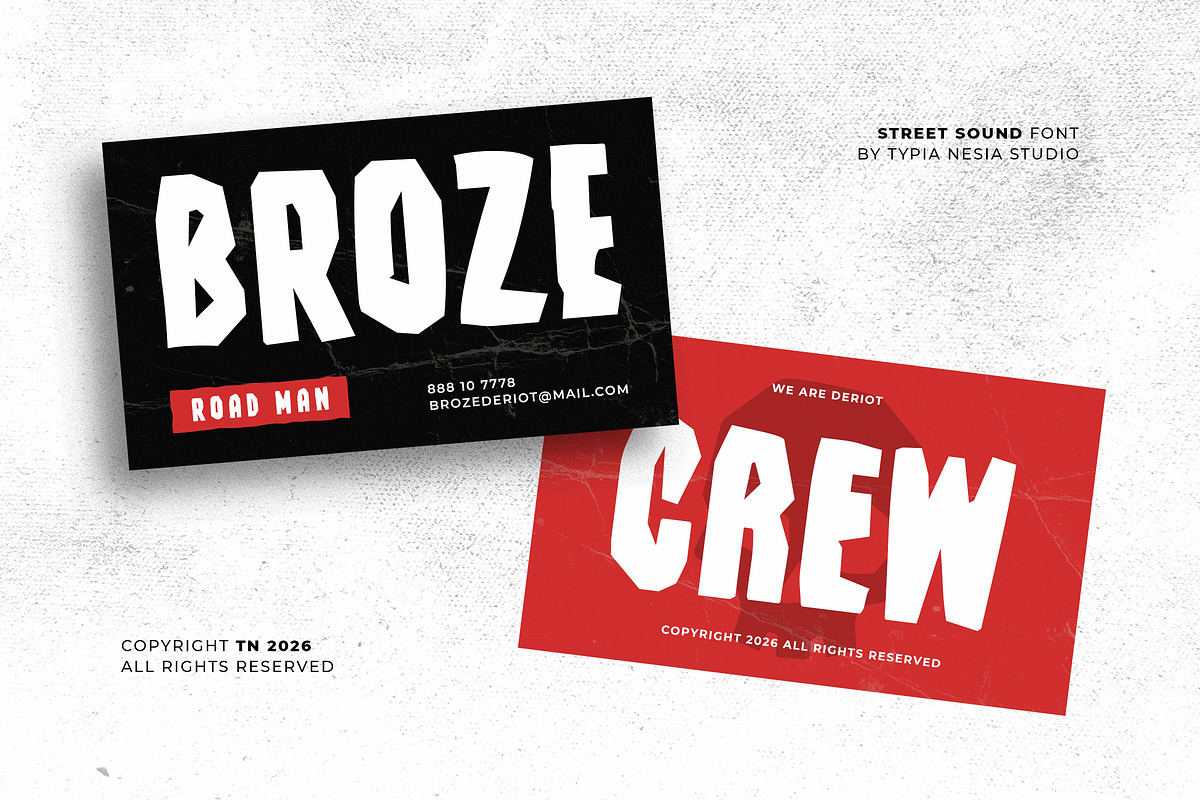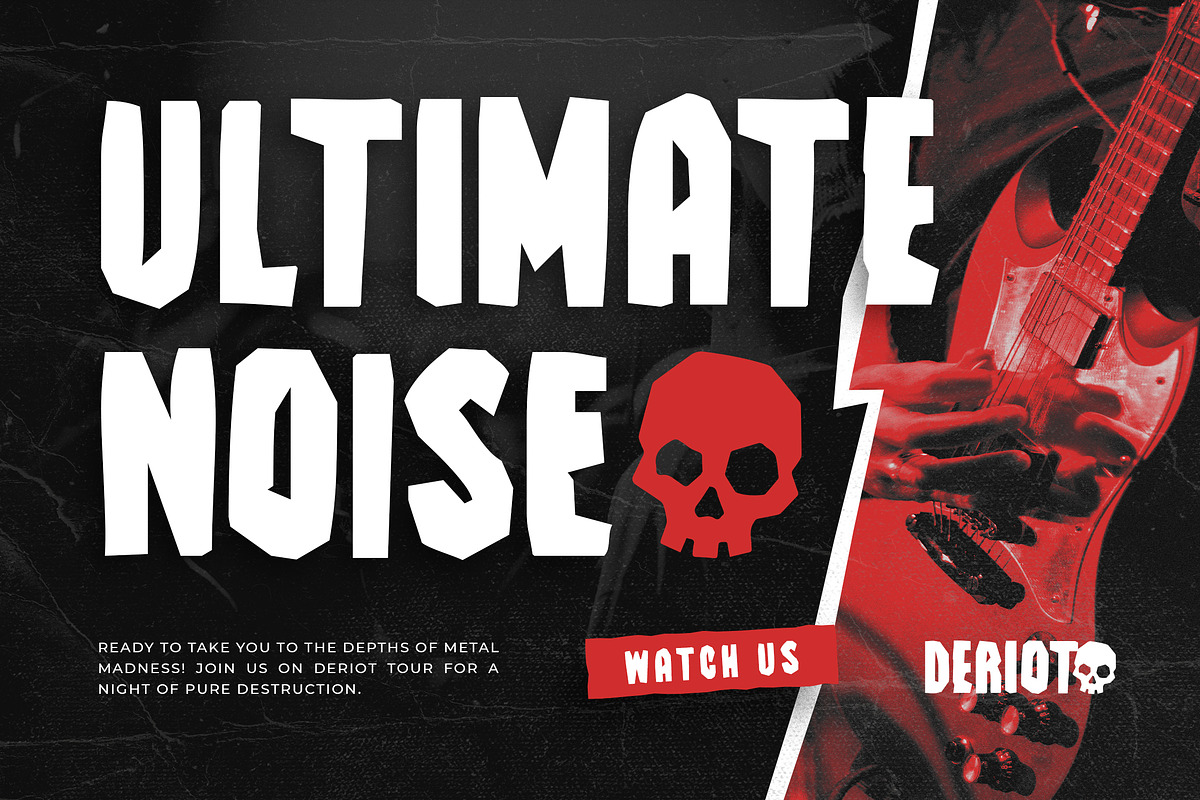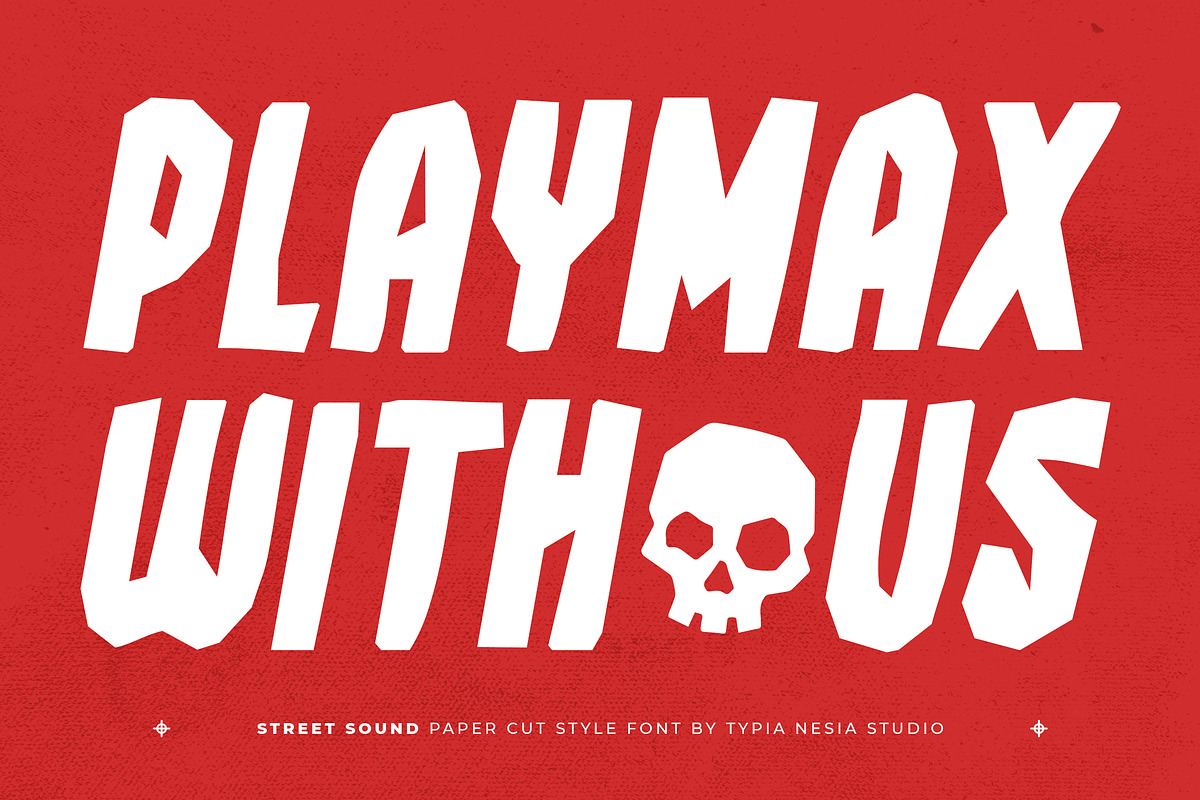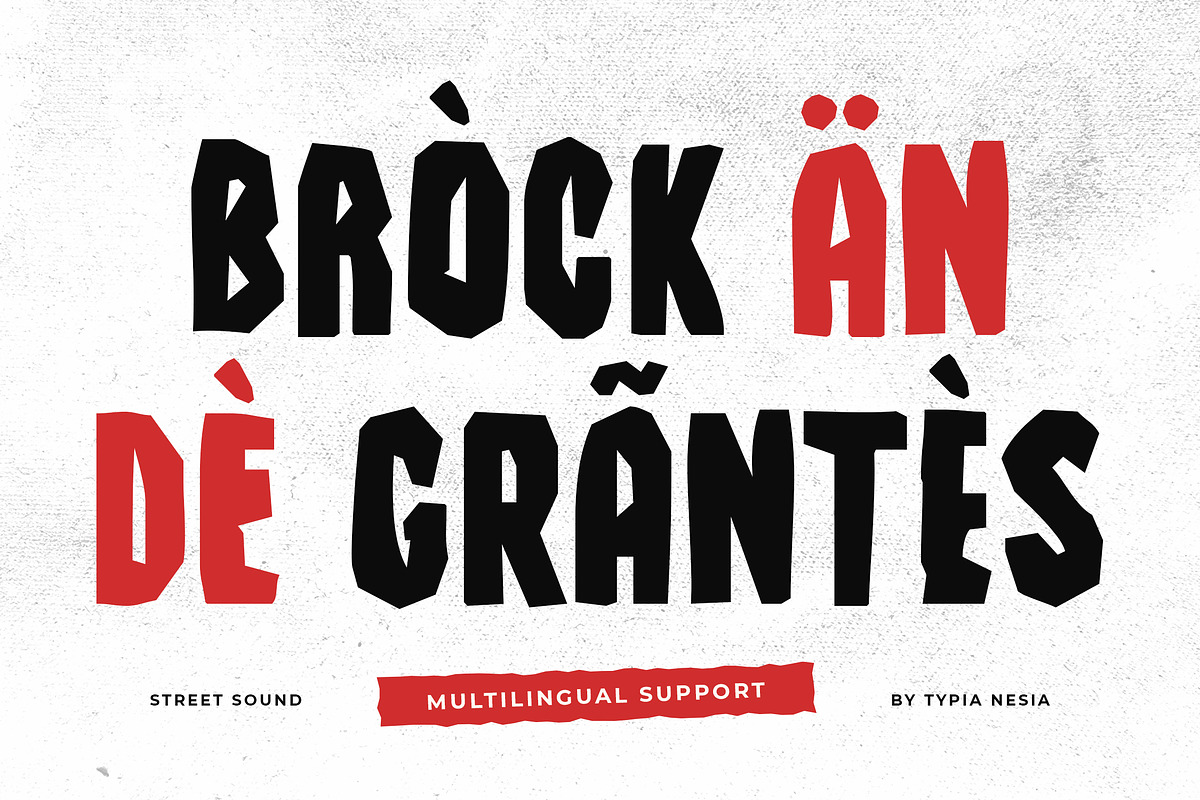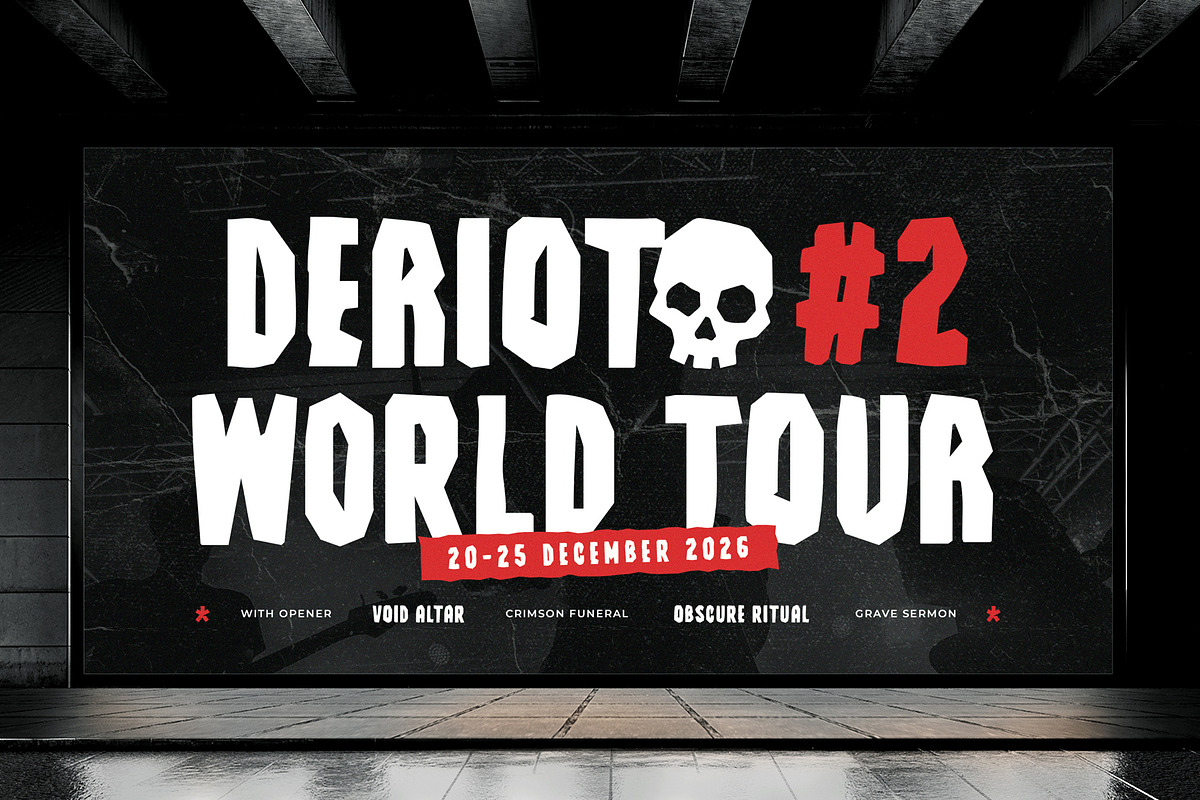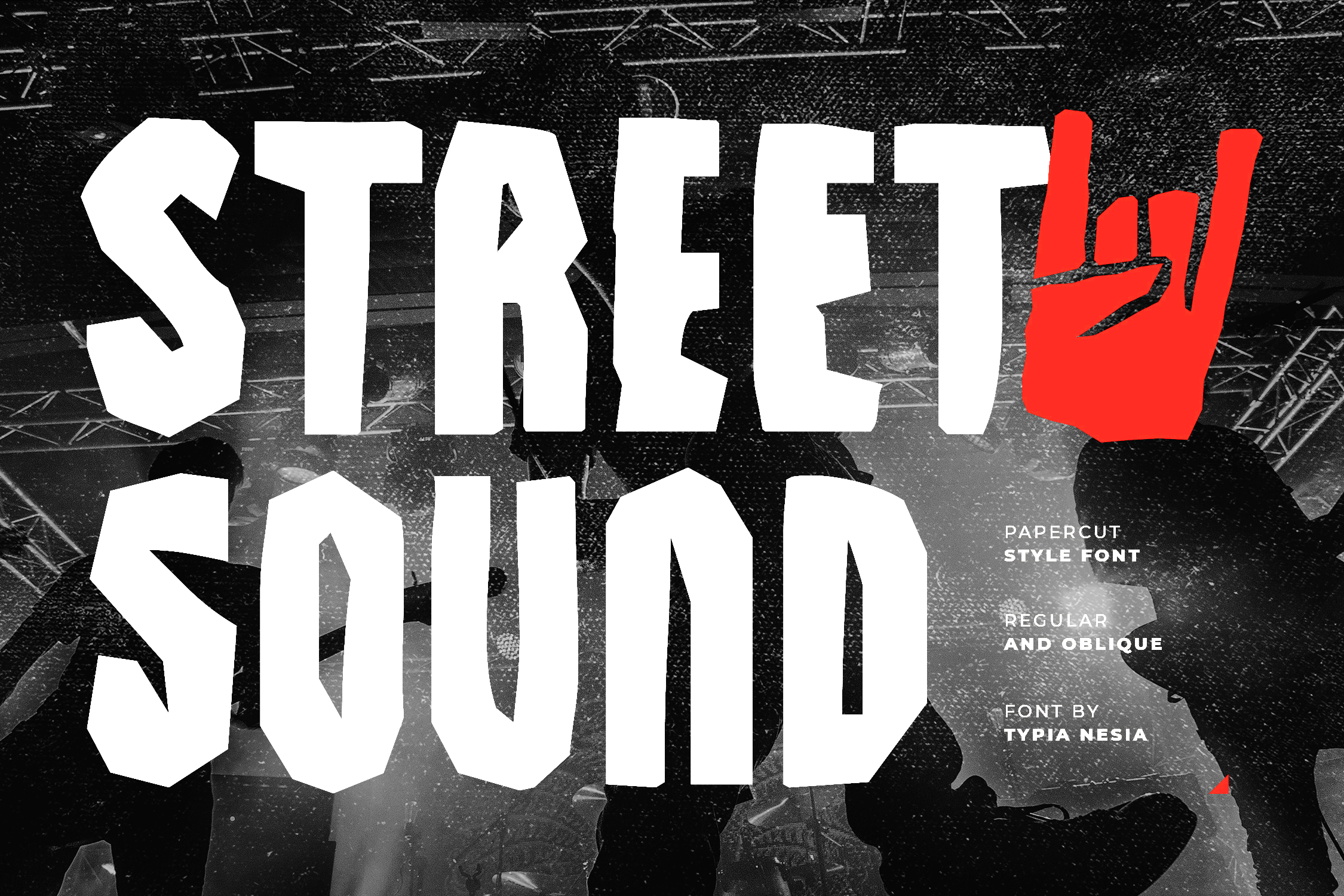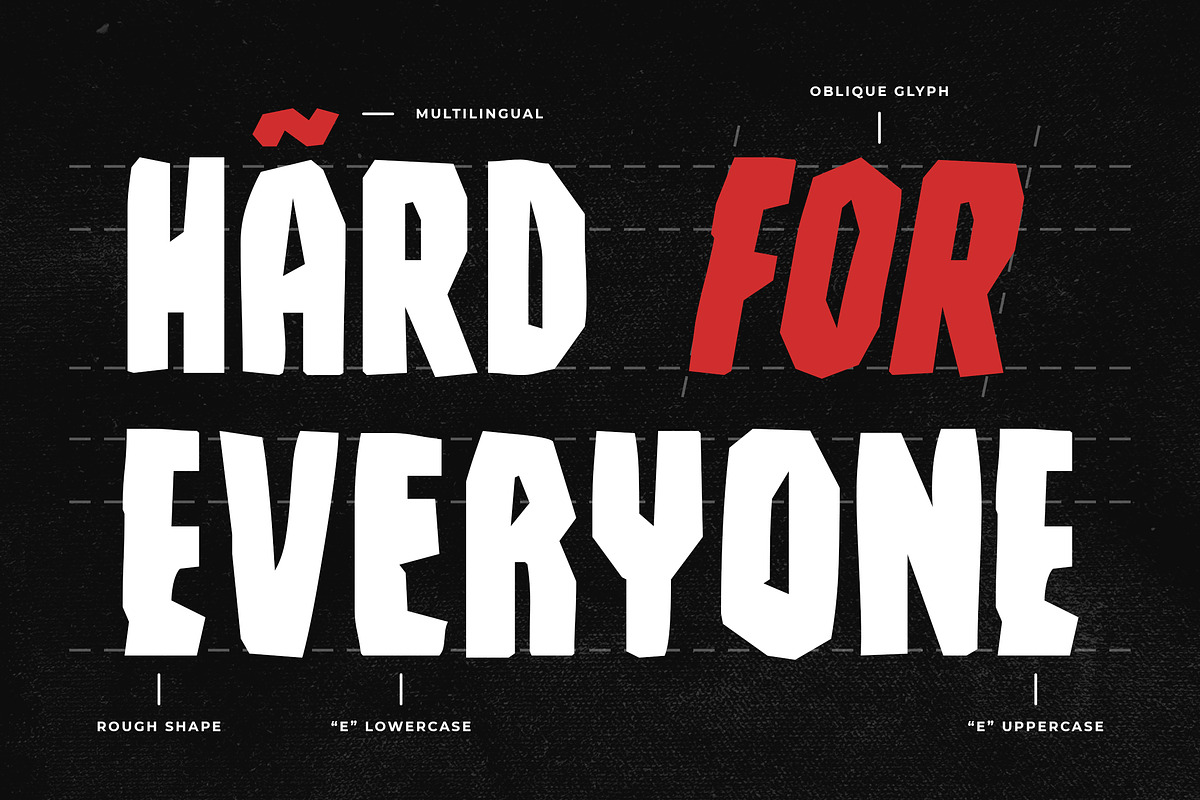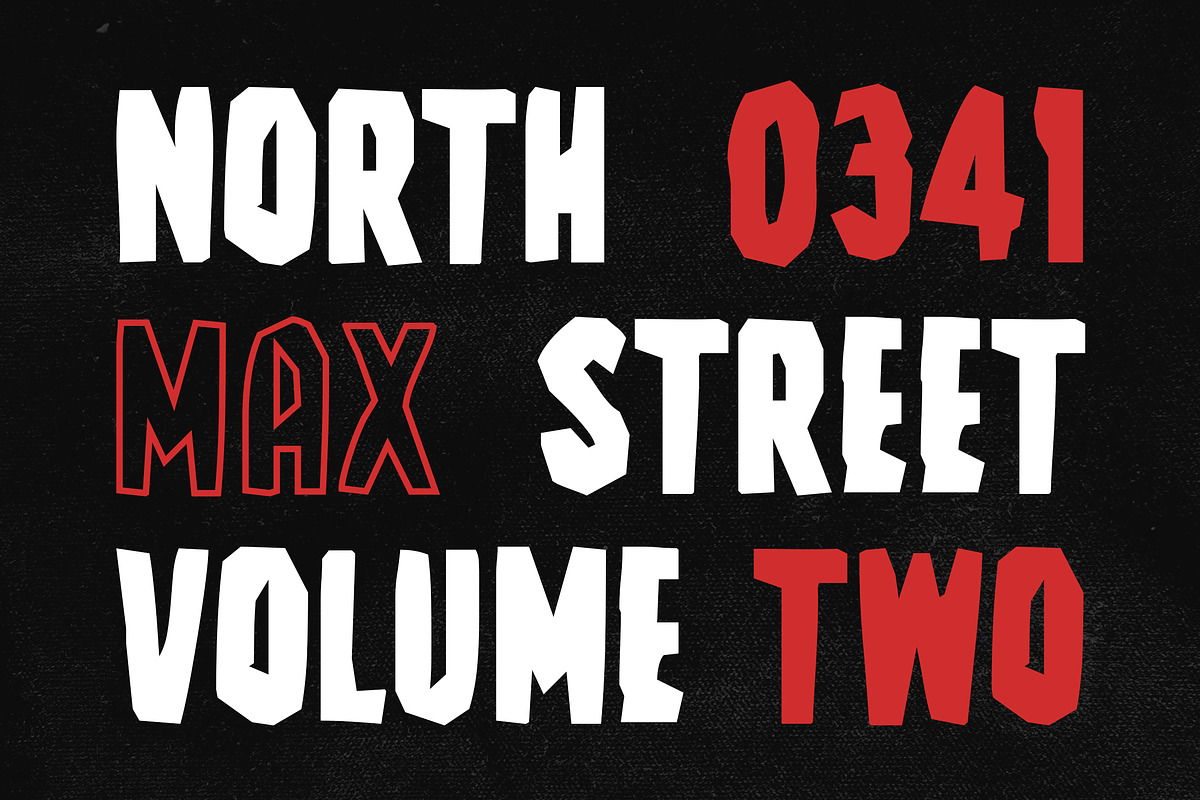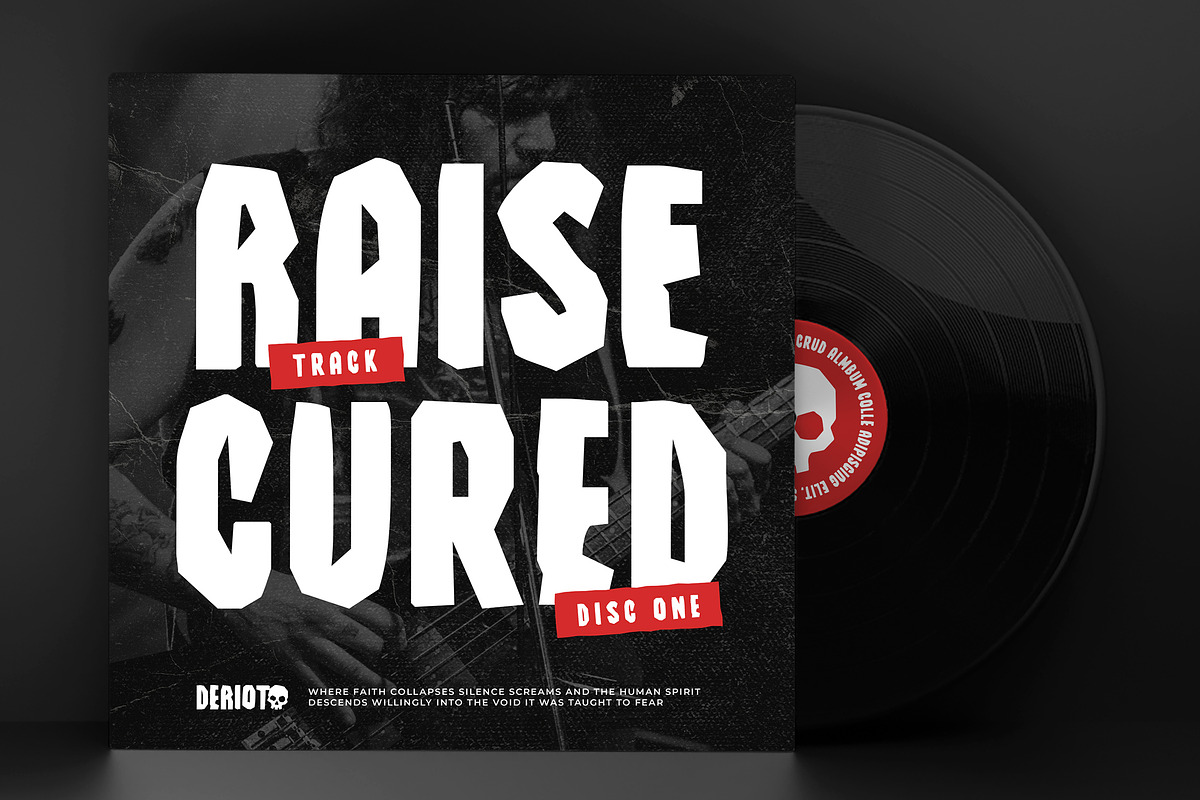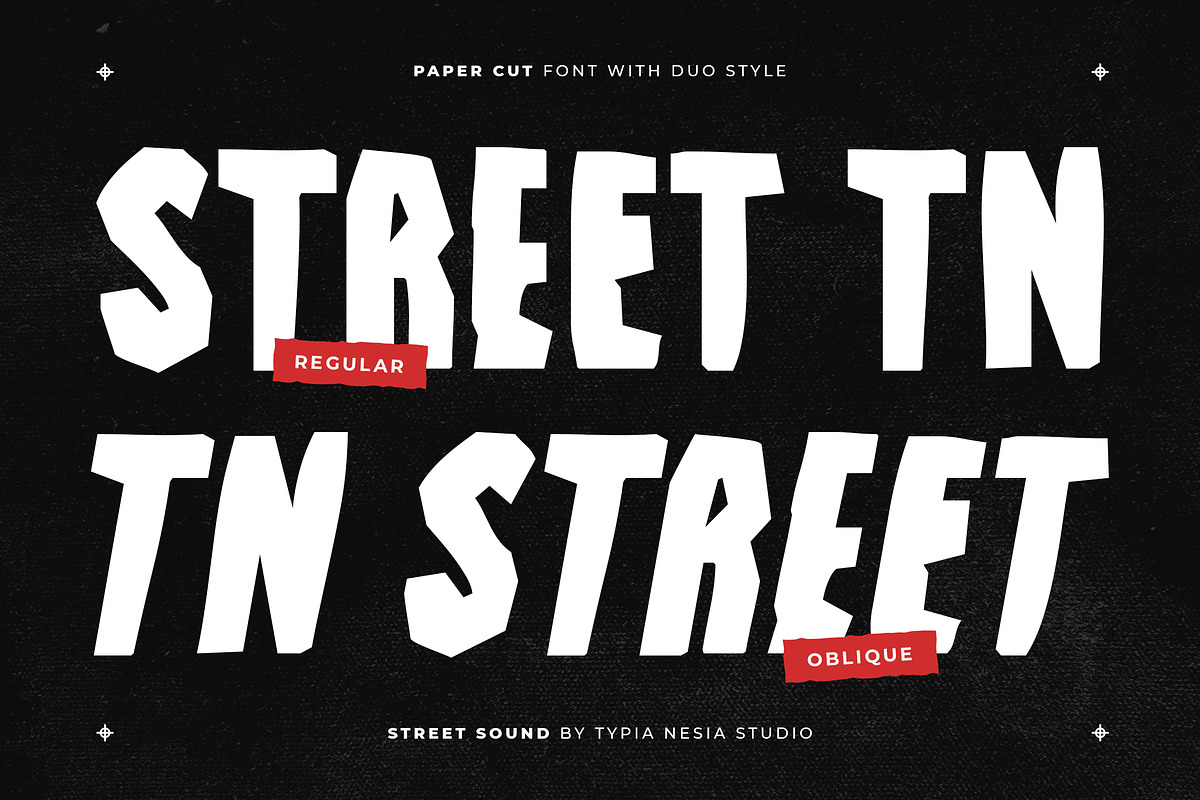
Street Sound - Urban Paper Cut Font
Street Sound - Bold Paper Cut Display Font for Music, Street Poster Design
Street Sound is a bold paper cut display typeface featuring angular geometric letterforms, handcrafted cut-out shapes, and a powerful visual presence. Designed to create striking headlines and unforgettable branding, it delivers a bold contemporary look that immediately captures attention across entertainment and commercial design projects.
Perfect for concert posters, album artwork, music festivals, gaming graphics, logo design, packaging, editorial headlines, and promotional campaigns. Whether you're building a rebellious brand or creating eye-catching promotional visuals, Street Sound delivers the bold attitude and modern edge your designs deserve.